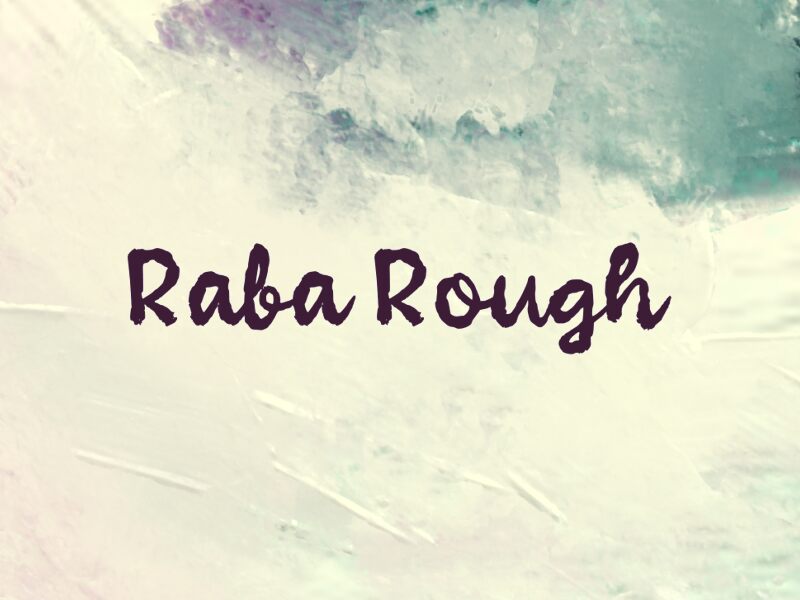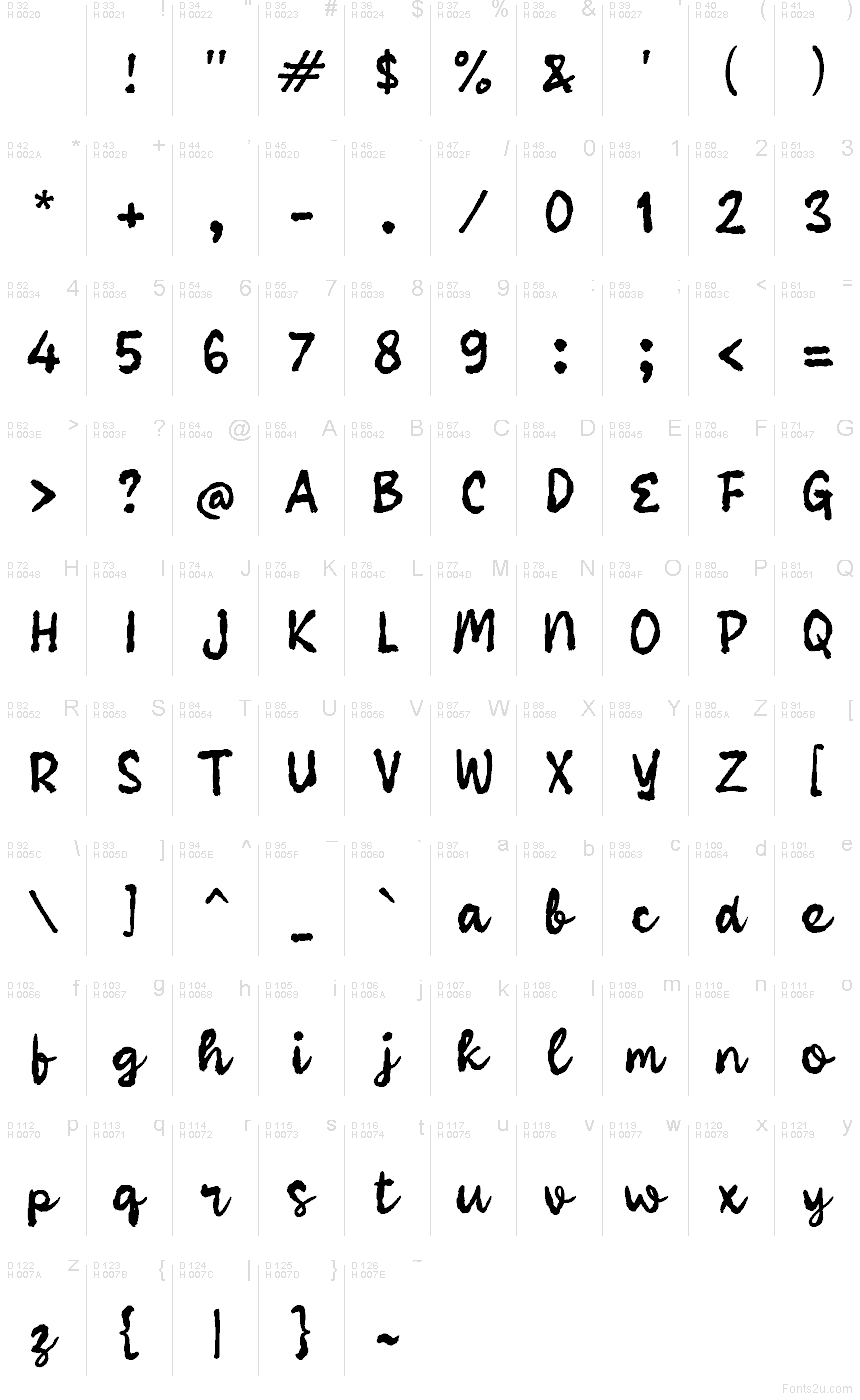
Raba Rough
Raba Rough font by wep is a free brush typeface with the gritty charm of ink dragged quickly across textured paper. Its strokes are bold yet agile, with uneven edges and tiny flecks that make each word feel hand-painted and spontaneous. The loose, slightly wild rhythm gives headlines a raw, human energy that polished scripts can’t match.
Using Raba Rough, you can bring this punchy handmade feel to posters, merch, social media graphics, album covers, bold logo marks, and packaging. This free font shines at larger sizes where its rough details and inky weight stay visible; pair it with a clean sans serif for body copy to keep layouts readable while letting Raba Rough handle the attitude.